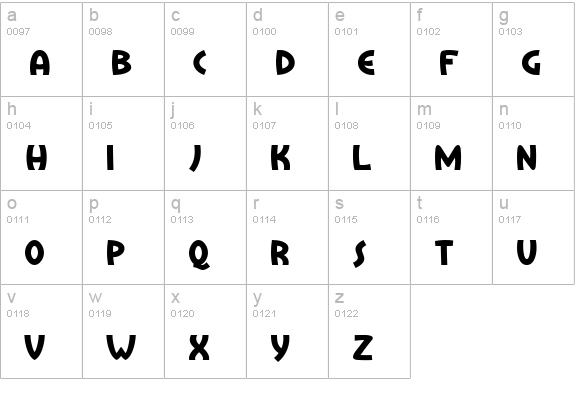
Treasure Island Font Details
Treasure Island font is a captivating and adventurous typeface that will transport you to a world of hidden treasures and daring escapades. With its bold and playful design, this font brings to life the spirit of exploration and discovery. Crafted with meticulous attention to detail, Treasure Island font is a true gem in the world of typography. Its unique combination of sharp edges and smooth curves creates a harmonious balance that is both eye-catching and readable. This font is perfect for all kinds of projects that require a touch of excitement and mystery. Whether you are designing a pirate-themed party invitation, a treasure map, or a swashbuckling logo, Treasure Island font will add a touch of charm and adventure to your creations. And the best part? Treasure Island font is free! Yes, you read that right. This incredible font is freely available to download at FontsMarket.com. So you can unleash your creativity without any limitations or constraints. So, set sail on a typographic journey with Treasure Island font. Download it today and embark on a thrilling design adventure like no other.